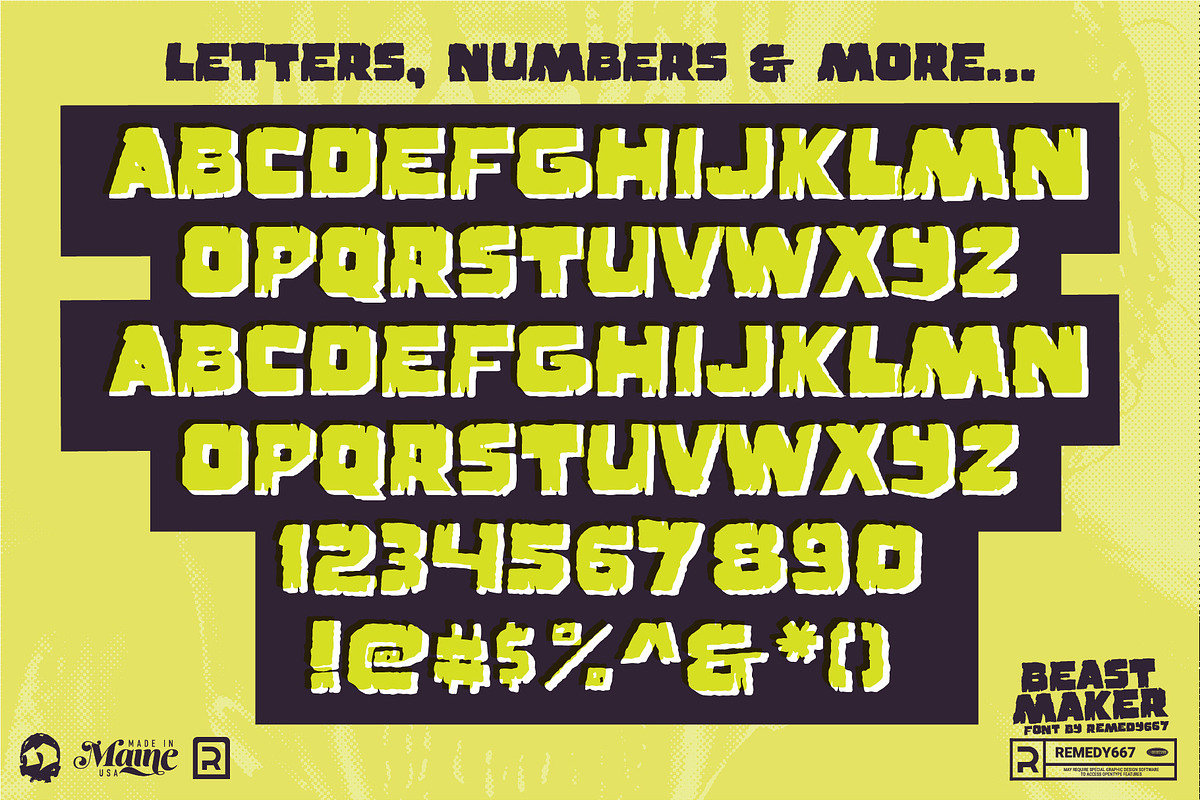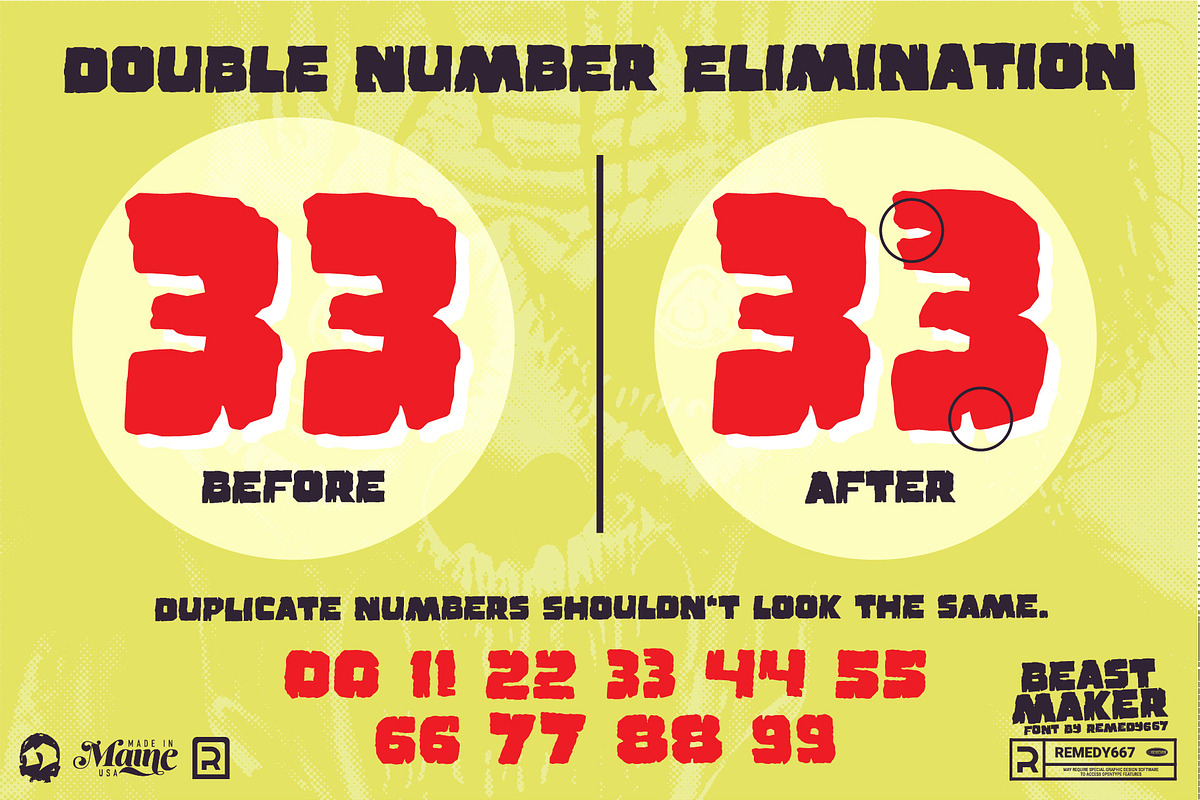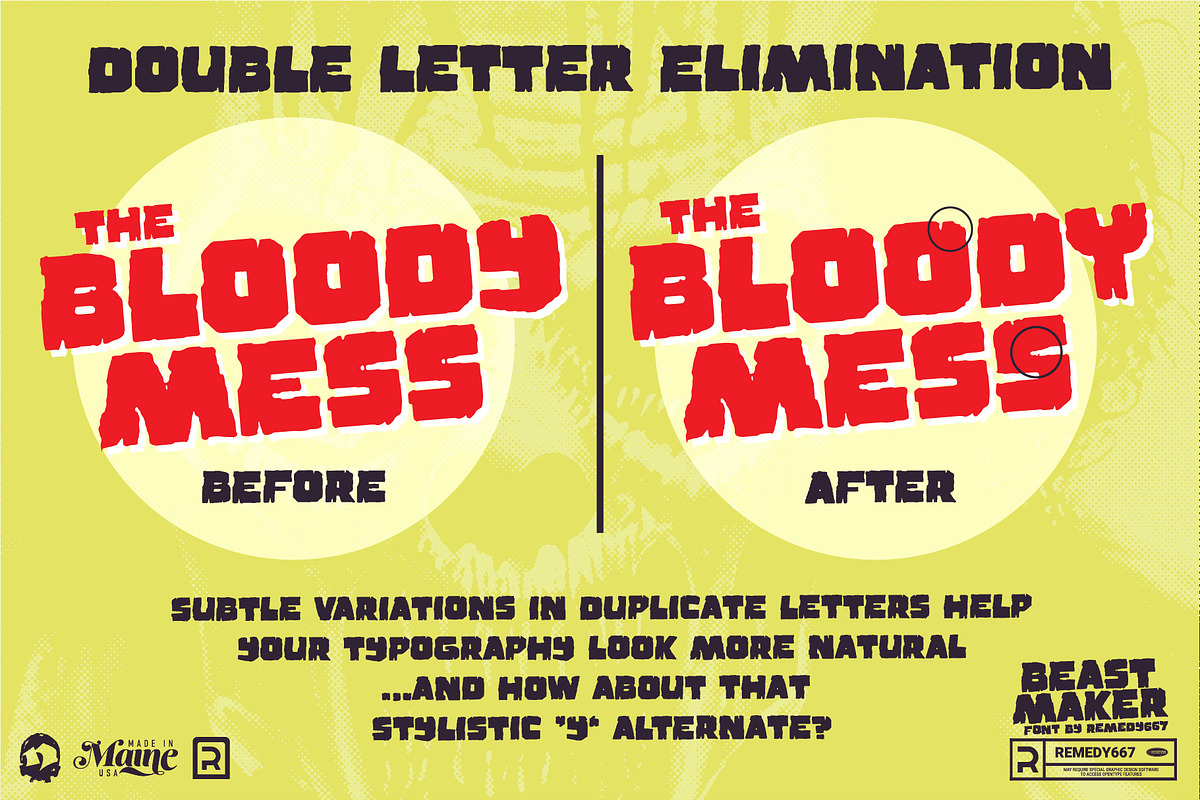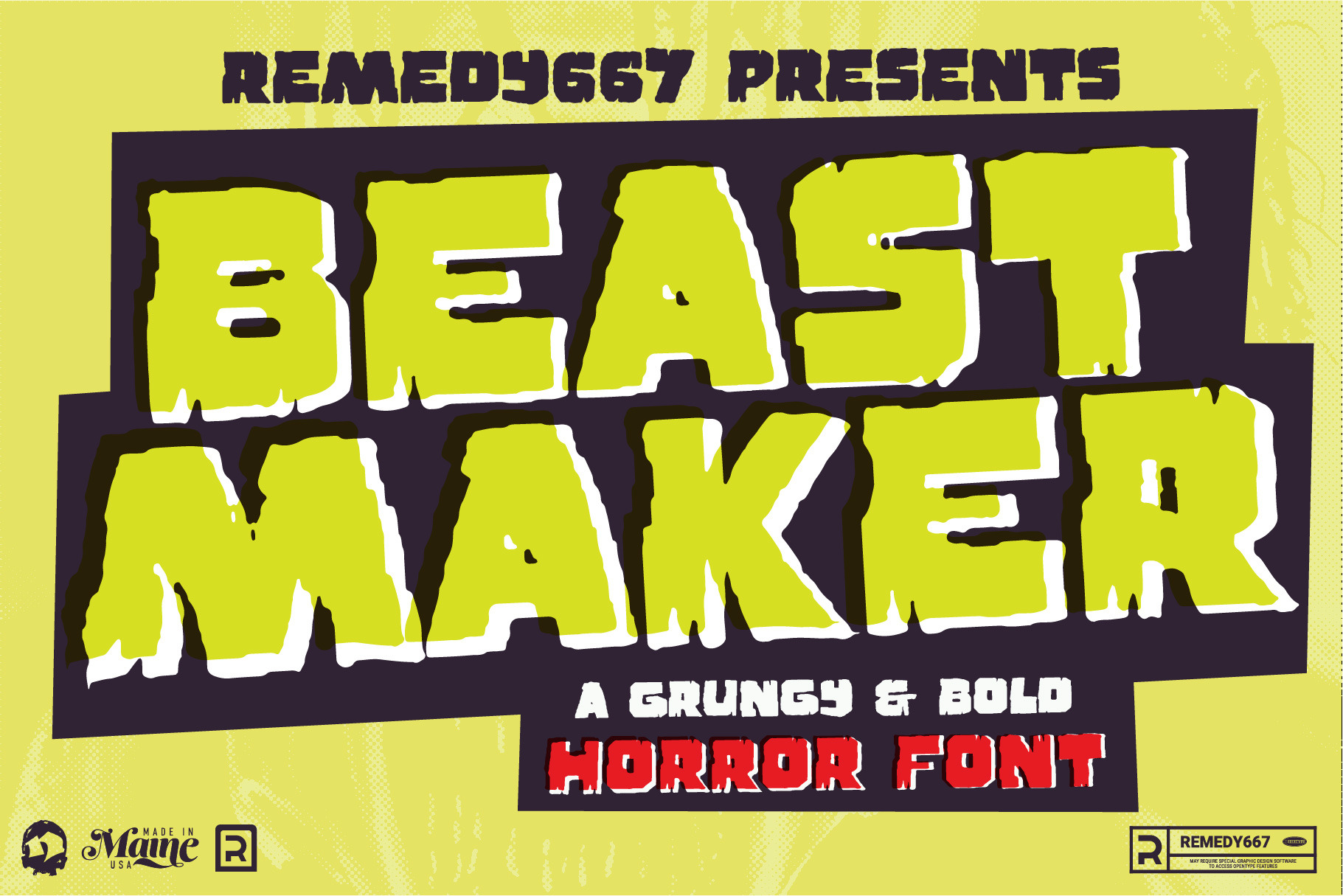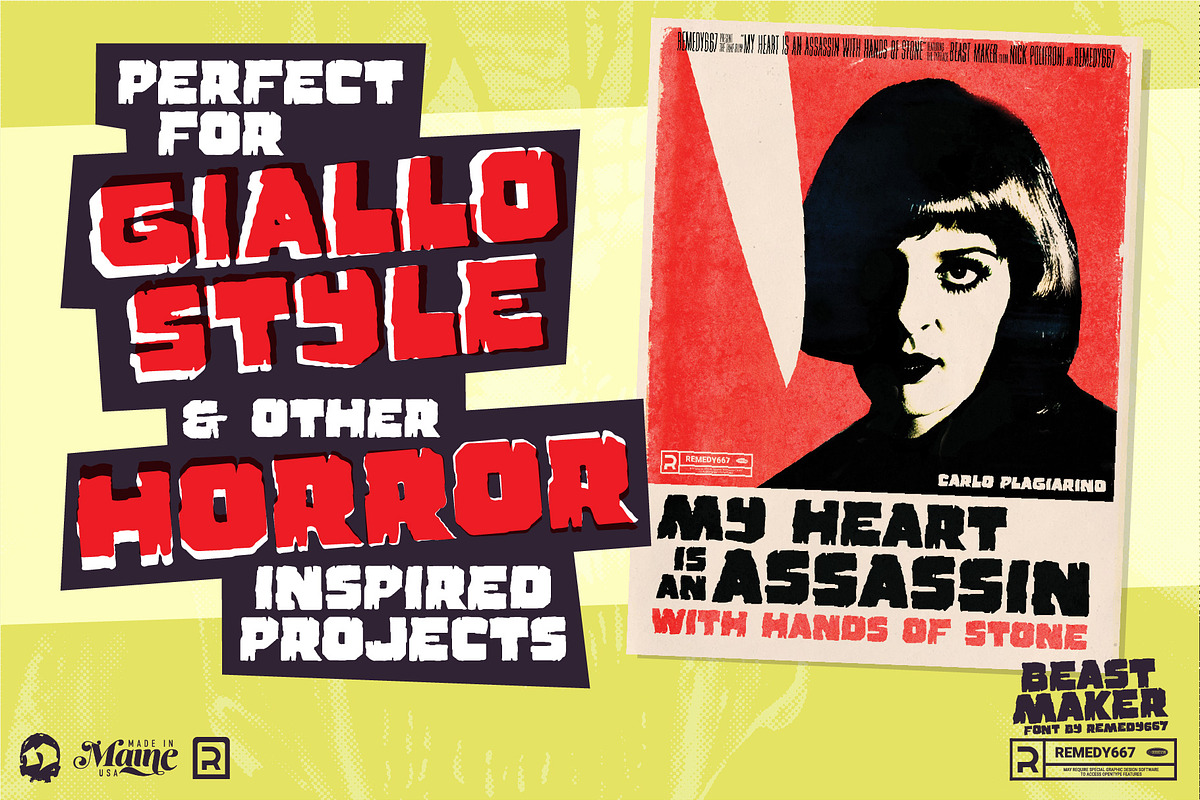
Beast Maker - Horror Font
Unleash the beast with Beast Maker, the ultimate gritty horror font from Remedy667. Inspired by 1970s Giallo films and perfect for creating a powerful and sinister vibe, Beast Maker is an essential tool for any horror designer.
Beast Maker is perfect for spooky posters and flyers, horror-themed video games and movies, or any project that needs an eerie touch. Beast Maker – because fear is always in fashion.
- Doubles Elimination for letters and numbers gives you a more natural look.
- Unleash the Beast Maker!